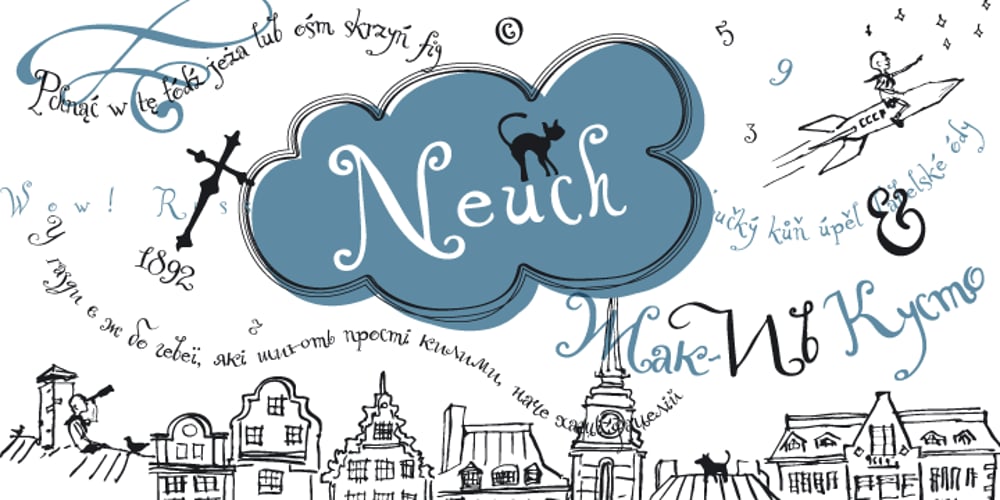
ALS Neuch
ALS Neuch font
ALS Neuch Font Family was designed by Igor Mustaev and published by Art. Lebedev Studio. ALS Neuch contains 1 styles and family package options. Neuch is a neat typeface for greeting cards, children’s books, labels and signs, handmade goodies packaging, and other cheerful designs. Drawn with a sharp-tipped ink pen, the letters kick their legs up and down, stretch out their tails, and hop along gaily, as if not obeying any rules. The cute characters look like they are one big family—they get into arguments, mix noisily and good-humoredly, push each other, yet always stick together. Neuch can speak several languages and has ligatures, decorative elements, and even a cat and a dog.